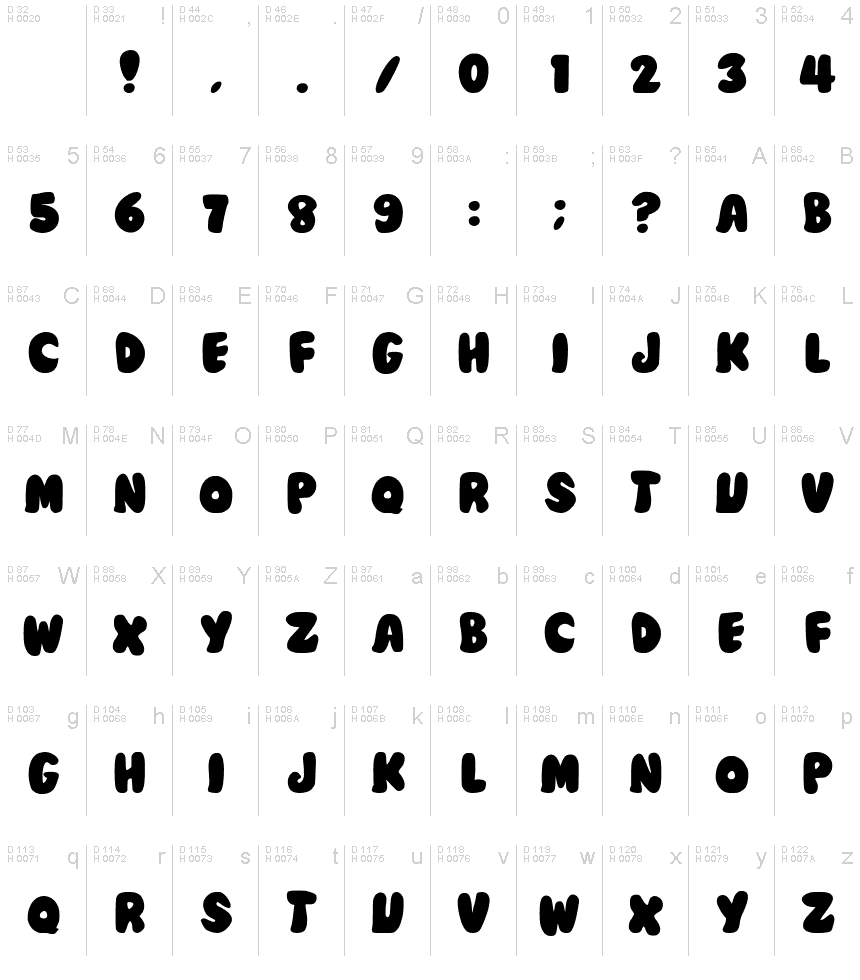
Big Ballon Regular
Introducing Big Ballon, a bold cartoon display font designed by Novita Maria. With its playful, bubbly style, Big Ballon is perfect for projects that need an extra bit of fun, from children's books to party flyers and beyond.